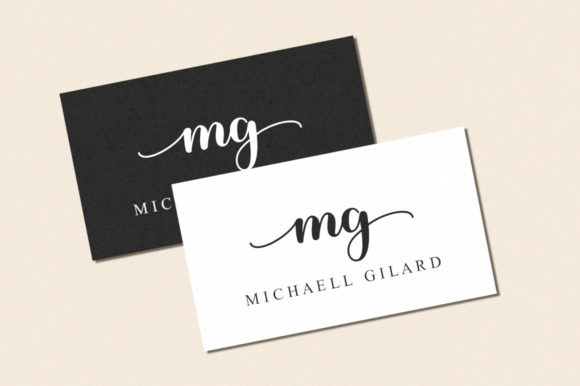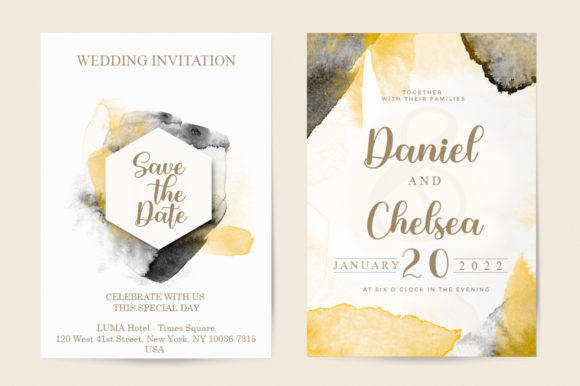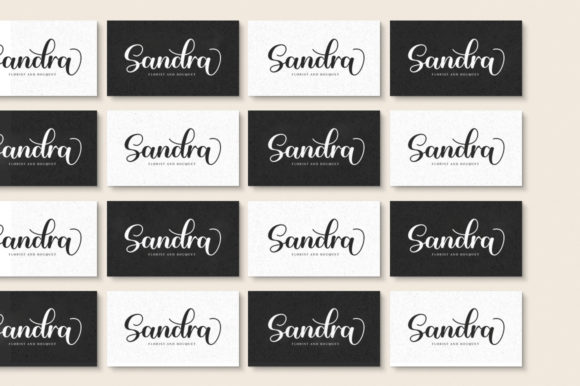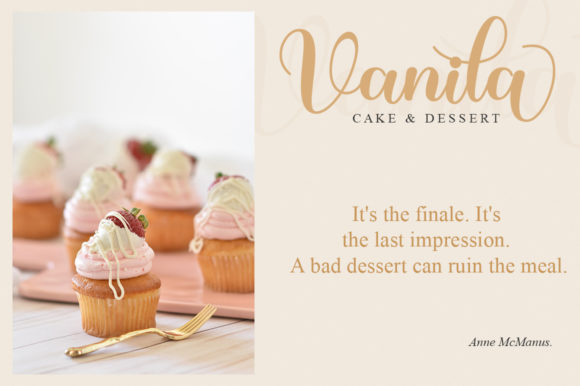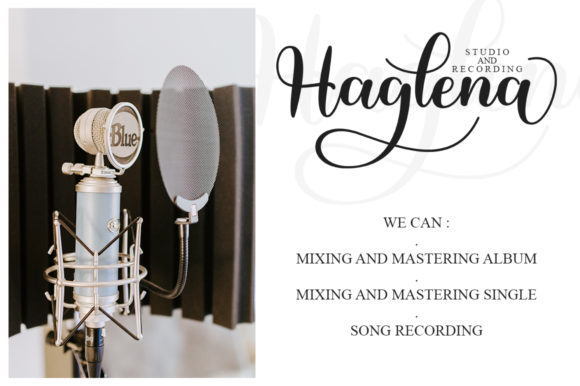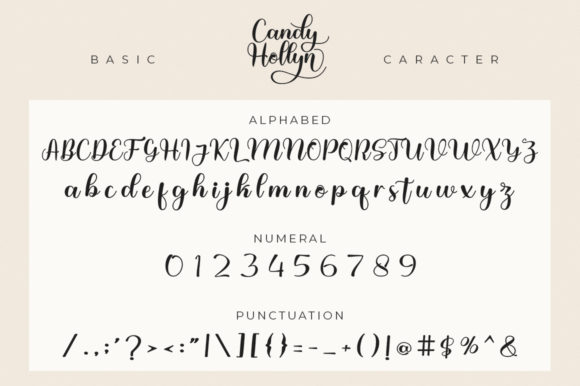
The Perfect Touch of Whimsy: Discover the Delight of Candy Hollyn Font
Have you ever found yourself doodling in the margins of a sketchbook, letting your pen wander across the page in a joyful dance of lines and curves? That’s where the magic of Candy Hollyn Font begins. This charming handwritten font is the perfect companion for designers seeking to add a touch of whimsy and personality to their projects.
Crafted with love and care, Candy Hollyn Font is designed to bring a smile to your face and a spring to your step. With its playful, handwritten feel and extensive glyph set, this font is a treasure trove for designers looking to create truly unique and eye-catching designs. And with its PUA encoding, accessing all the glyphs and swashes is a breeze, making it a valuable addition to any design toolkit.
Candy Hollyn Font Key Features
- Unique Characteristics: Candy Hollyn Font features a whimsical, hand-drawn design with intricate details and flourishes, ideal for adding a touch of elegance and sophistication to various projects.
- Font Style: Script, Display, and Casual, offering a range of styles to suit different design needs and preferences.
- Language Support: Multilingual support, including Latin, Cyrillic, and Greek alphabets, making it suitable for global branding and design applications.
Candy Hollyn Font Review
I’ve had the chance to work with Candy Hollyn Font, and I must say it’s a delightful addition to any design project. Here’s my honest review:
- Unique and playful design: Candy Hollyn Font is perfect for creating eye-catching headlines and titles that stand out from the crowd.
- Versatile: This font works well for a variety of projects, from children’s books and party invitations to modern branding and marketing materials.
- Easy to read: Despite its playful nature, Candy Hollyn Font is clear and easy to read, making it suitable for longer texts as well.
- Limited font weights: While Candy Hollyn Font offers a range of styles, it’s lacking in font weights, which can limit its use in certain contexts.
- Not suitable for formal projects: Due to its playful nature, Candy Hollyn Font may not be the best choice for formal or professional projects, such as business reports or academic papers.
Candy Hollyn Font is a fun and creative addition to any design project. While it may have some limitations, its unique design and versatility make it a great choice for designers looking to add a touch of whimsy to their work.
The Candy Hollyn font is perfect for creating playful and whimsical designs. Here are some tips to get the most out of it:
- Use it for headings and titles to add a touch of elegance.
- Combine it with bold fonts for a striking contrast.
Common use cases for the Candy Hollyn font include:
- Children